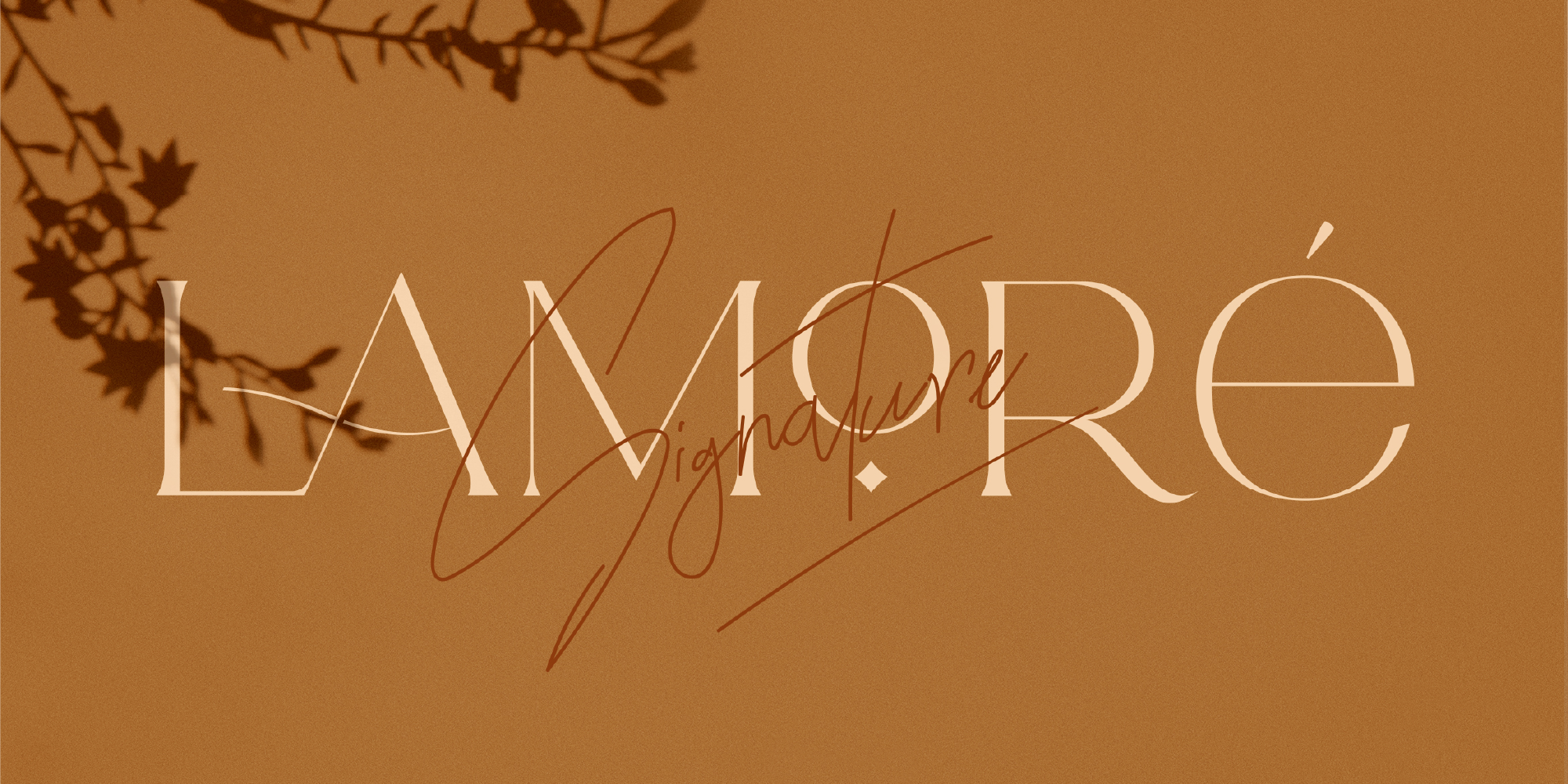
Lamore Font Free Download – A Romantic & Elegant Script for Sophisticated Designs
Looking for a font that exudes timeless romance and luxury? Lamore Font Free Download delivers a graceful, flowing script perfect for wedding stationery, high-end branding, fashion labels, and any project requiring delicate sophistication. Its elegant swashes and natural letter connections create an air of refined beauty.
Why Choose Lamore Font?
Lamore Font Free Download offers exquisite typography with:
Smooth, calligraphic strokes that mimic hand-penned elegance
Beautiful alternate characters for customized word styling
Perfect for formal occasions and luxury branding
Excellent readability despite its decorative nature
Lamore Font Free Download – Timeless Romantic Elegance
Elevate your most special projects with this exquisite script for:
Wedding invitations & bridal stationery
Perfume packaging & cosmetic branding
Fashion lookbooks & boutique logos
Luxury restaurant menus & hotel branding